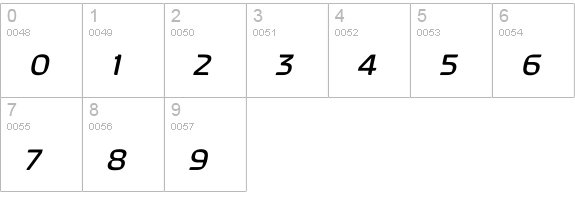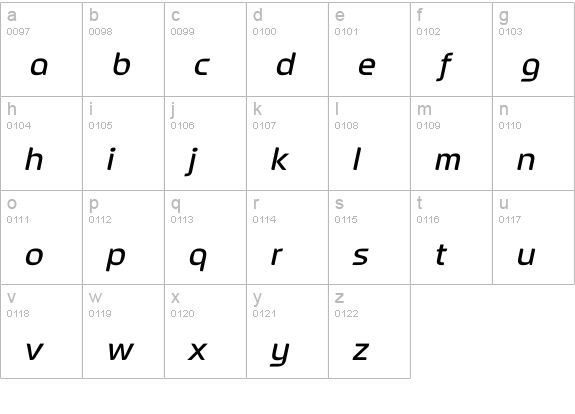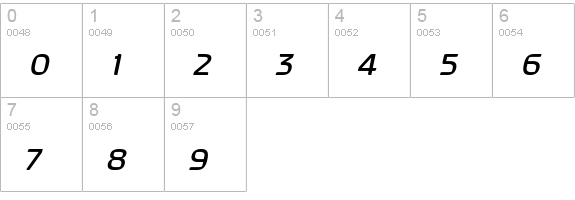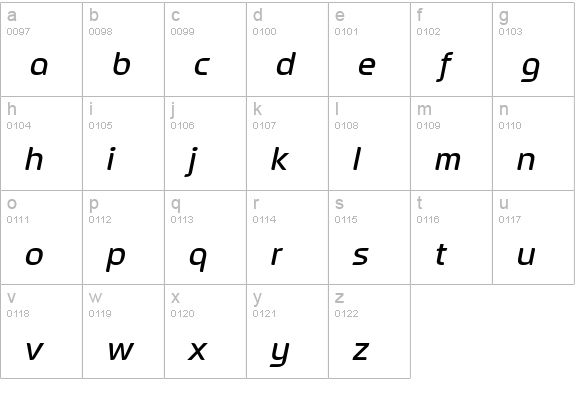
SeptemberMedium Italic Font Details
SeptemberMedium Italic is a distinctive, italic variant in the SeptemberMedium typeface family \xE2\x80\x94 well suited to design and typography projects.
SeptemberMedium Italic font is a stylish and elegant typeface that exudes sophistication and modernity. Its medium weight with a touch of italic slant gives it a unique and dynamic appearance, making it perfect for a wide range of design projects. The flowing curves and subtle details of this font add a sense of grace and refinement to any text. Best of all, SeptemberMedium Italic font is available for free download at FontsMarket.com, allowing you to easily incorporate this beautiful typeface into your designs without any cost. Whether you're working on branding, advertising, invitations, or any other creative project, SeptemberMedium Italic font will elevate your work with its timeless charm and versatility. Download it today and add a touch of sophistication to your designs!